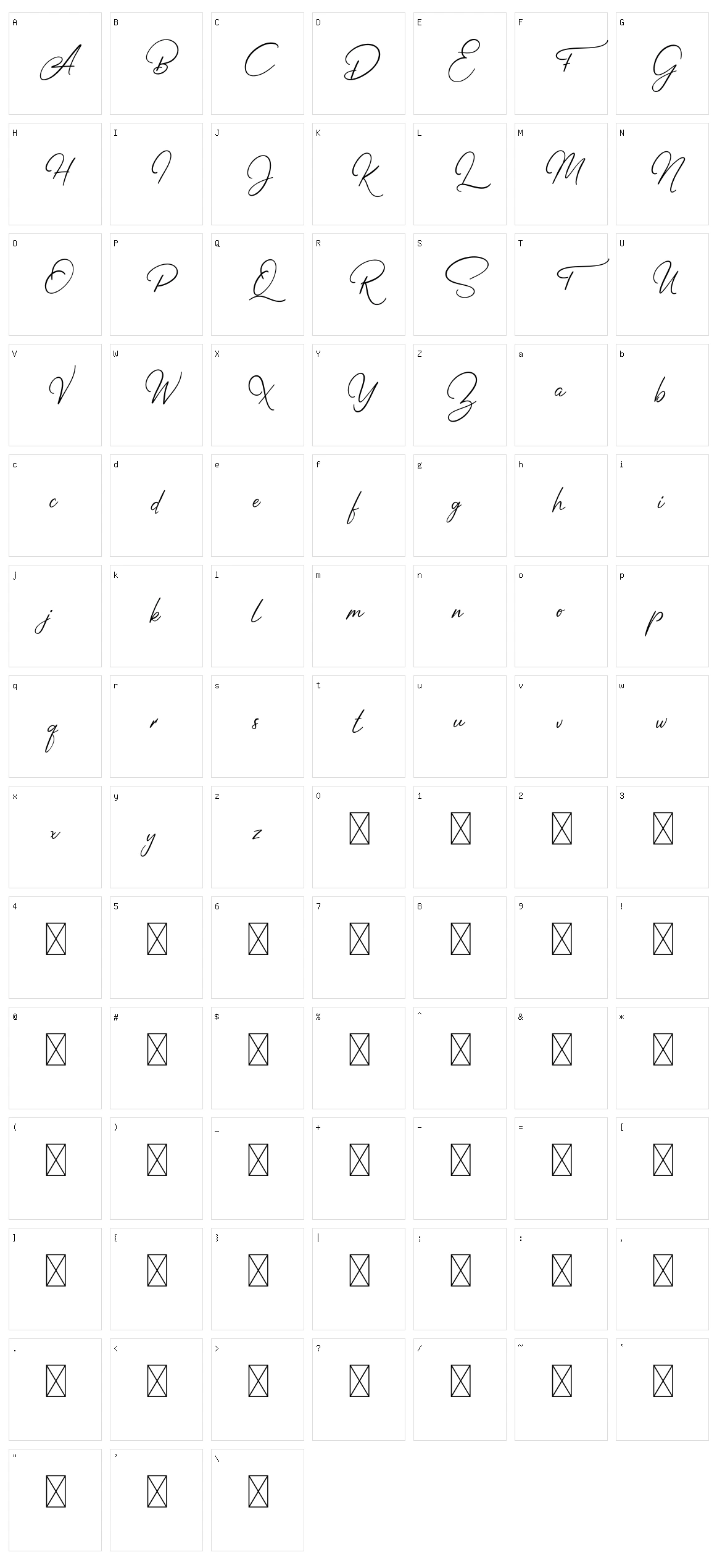
The free font Elysian Script is carefully designed by VPcreativeshop, showcasing a thoughtful balance of creativity and usability and falls under the Script font style. When you download the ZIP file, it contains only 57.93 KB of font files, making it lightweight and quick to download. Please review the license details below to understand permitted usage and distribution rights. If license information is not available, we recommend using this font for personal projects only or contacting the author directly for commercial usage permissions.